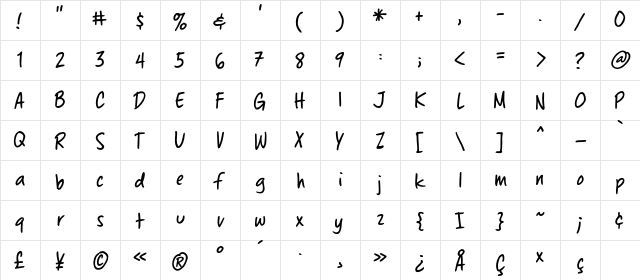
Chewed Pen BB Regular
| Foundry | Nate Piekos. Blambot.com |
| Designer | Nate Piekos |
Design Context for Chewed Pen BB Typeface
Chewed Pen BB is a composed and adaptable typeface that performs quietly and consistently across a wide range of design contexts.